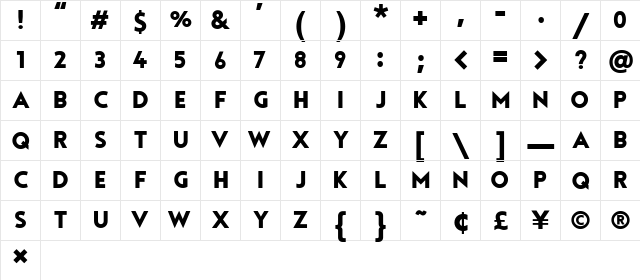
Tourmaline Bold
| Foundry | Vincenzo Paolo Fraddosio |
| Designer | Vincenzo Paolo Fraddosio |
Design Context for Tourmaline Typeface
Tourmaline offers clean, dependable letterforms without strong stylistic allegiance, making it a practical choice for designers who need flexibility. The heavy weight commands attention and anchors typographic hierarchies.